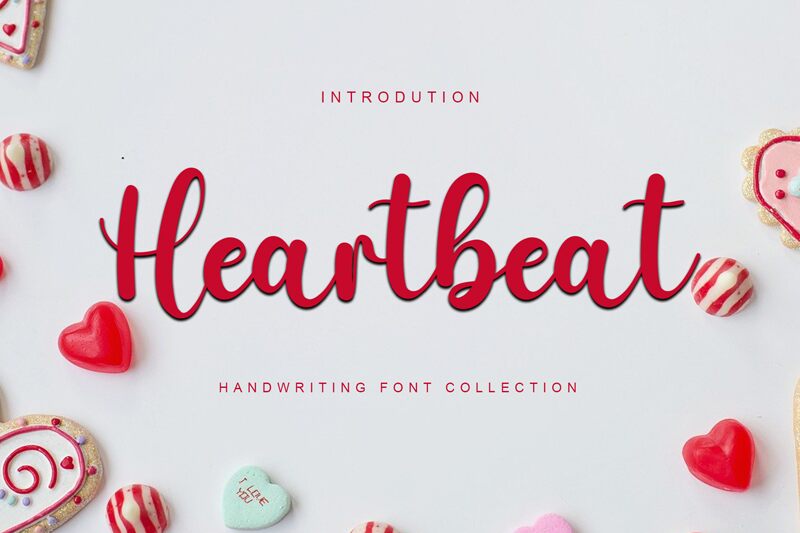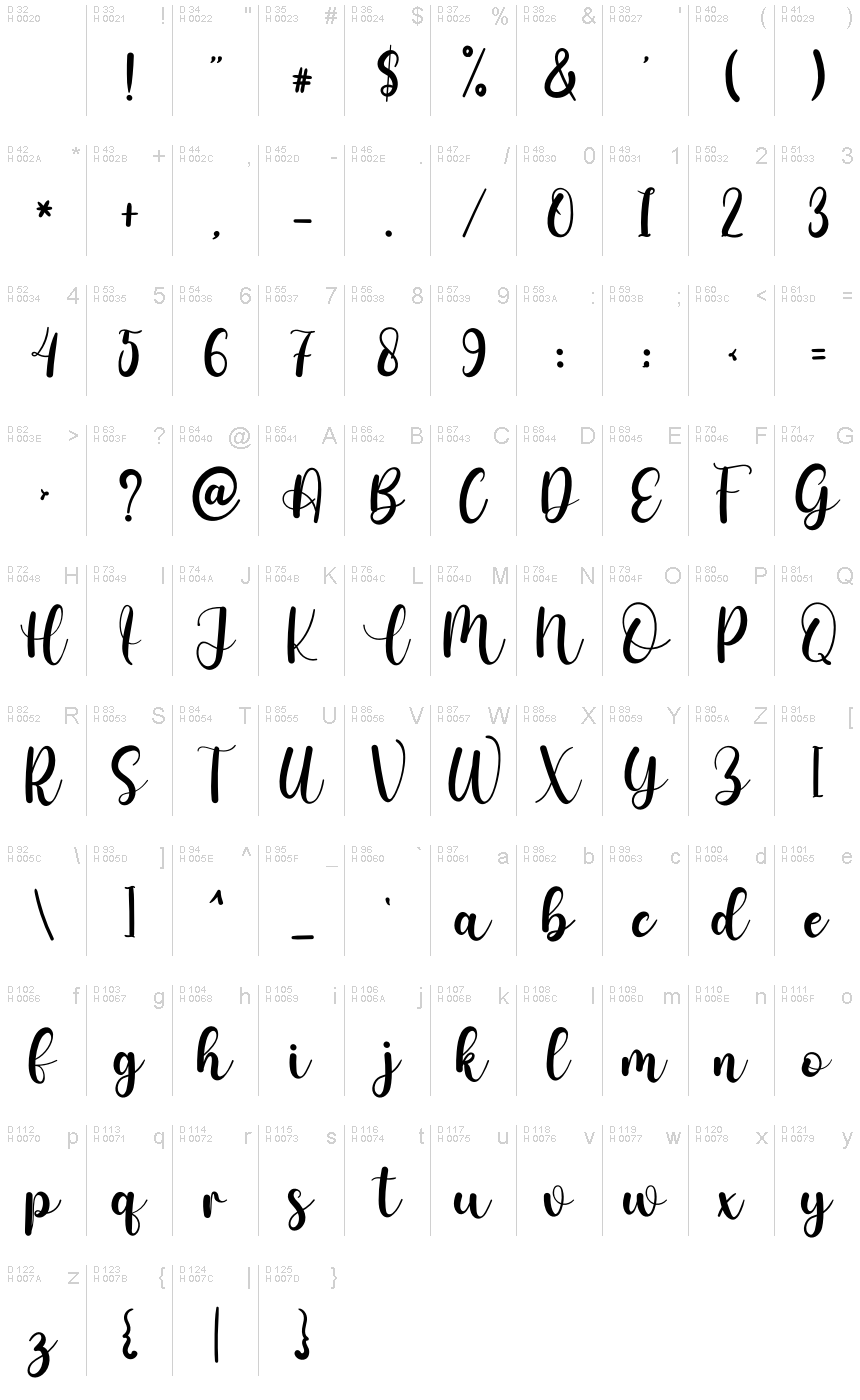
Heartbeat
Heartbeat is a font that dances between elegance and playfulness, crafted by Juneteenth with a nod to classic calligraphy yet pulsing with modern vitality. Its handwritten style exudes warmth, making it ideal for projects that require a personal touch. The fluidity of its characters suggests sophistication, while the organic nature of its strokes adds an inviting feel.
This font's versatility shines in applications where charm and character are paramount. Perfect for personalized letterheads, captivating titles, and bespoke stationery, Heartbeat brings a bespoke quality to branding materials and creative designs that seek to establish an intimate connection with the audience.